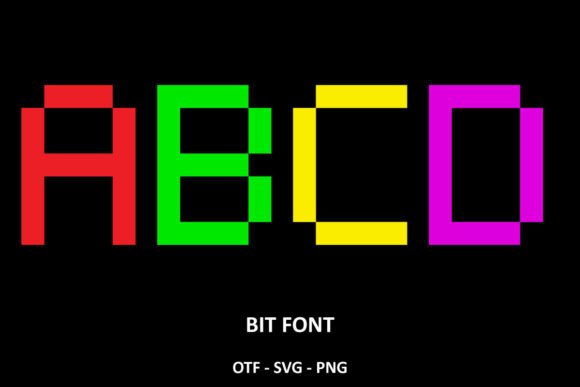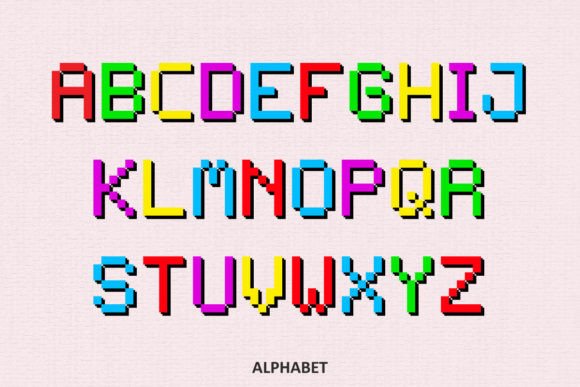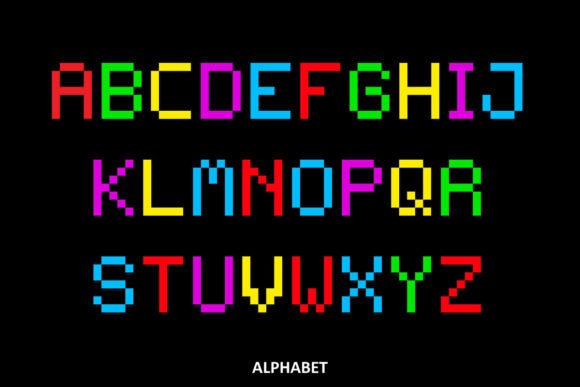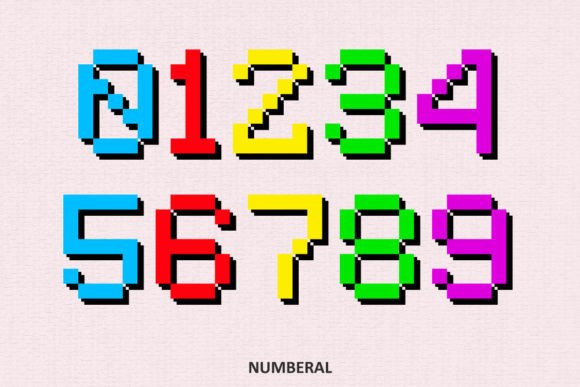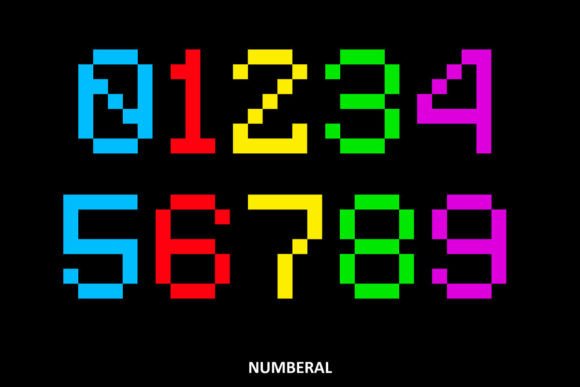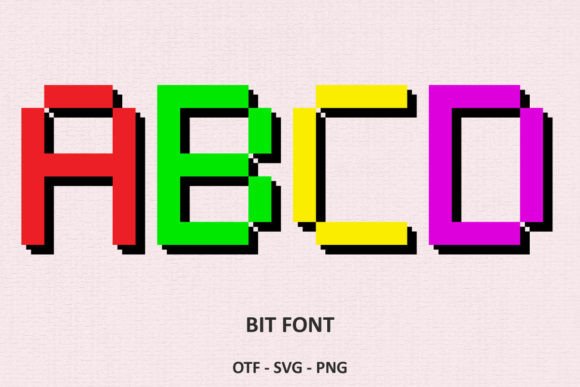
Introducing Bit Font: The Ultimate 8-Bit Display Font for Creative Projects
Are you looking for a digital font that can add a touch of nostalgia and playfulness to your designs? Look no further than Bit Font, a charming 8-bit display font that’s perfect for creating unique and eye-catching projects. In this article, we’ll explore the features and benefits of Bit Font, and show you how to make the most of this versatile font in your designs.
What is Bit Font?
Bit Font is a digital font inspired by the classic 8-bit display fonts of the past. Its pixelated design gives it a distinctive retro look that’s sure to appeal to designers and crafters who love vintage aesthetics. With its clean lines, simple shapes, and adorable charm, Bit Font is the perfect choice for projects that require a cute and friendly vibe.
What Can I Use Bit Font For?
The possibilities are endless with Bit Font! This versatile font can be used to create a wide range of projects, including:
- Book covers: Add a touch of nostalgia to your book covers with Bit Font’s retro charm.
- Birthday cards: Create personalized birthday cards with a unique and playful font.
- T-shirts: Design eye-catching T-shirts with Bit Font’s bold and colorful letters.
- Greeting cards: Make your greeting cards stand out with Bit Font’s adorable pixelated design.
- And many more: Bit Font is perfect for any project that requires a cute and friendly vibe.
Tips and Tricks for Using Bit Font
Here are a few tips and tricks to help you get the most out of Bit Font:
- Experiment with different colors: Bit Font looks great in a variety of colors, so don’t be afraid to get creative!
- Mix and match: Combine Bit Font with other fonts and graphics to create unique and eye-catching designs.
- Pay attention to size: Bit Font looks best when used at larger sizes, so be sure to adjust your design accordingly.
Bit Font is a versatile and charming digital font that’s perfect for designers and crafters who love vintage aesthetics. With its adorable pixelated design and wide range of uses, Bit Font is sure to become a favorite in your font collection. Whether you’re creating book covers, birthday cards, T-shirts, or greeting cards, Bit Font is the perfect choice for adding a touch of nostalgia and playfulness to your designs.